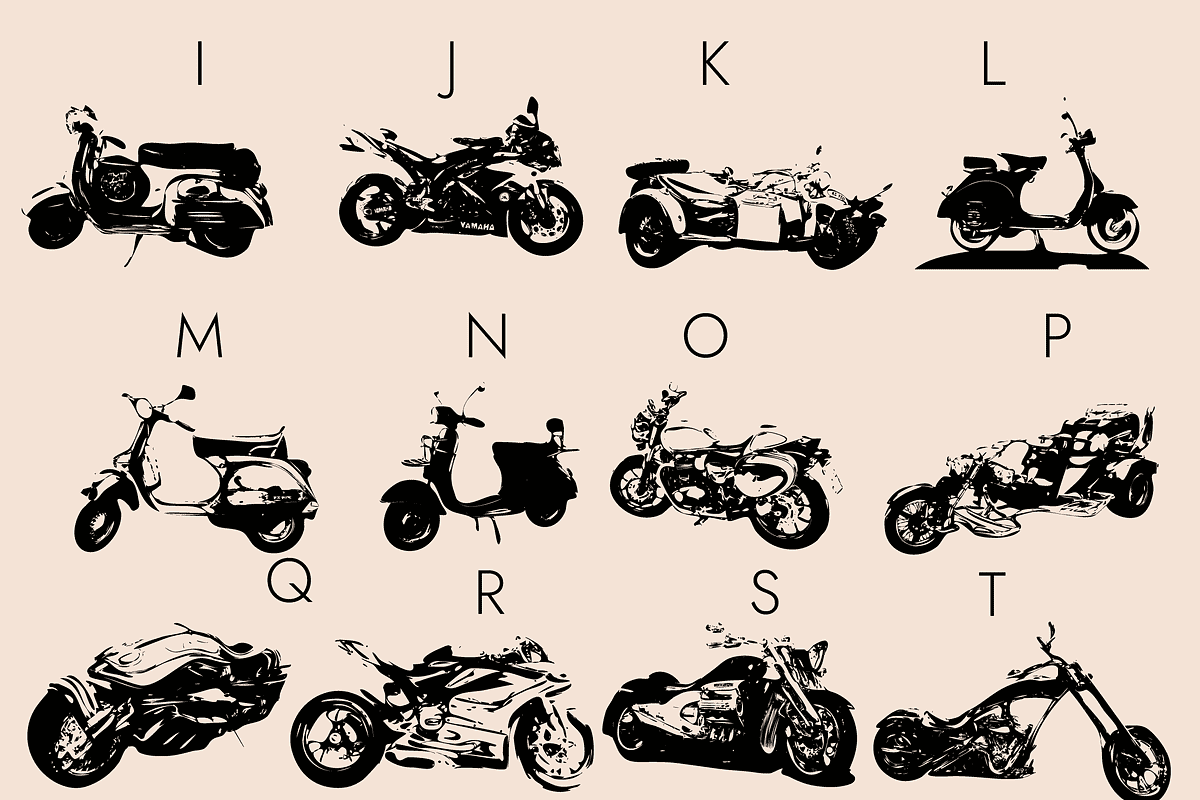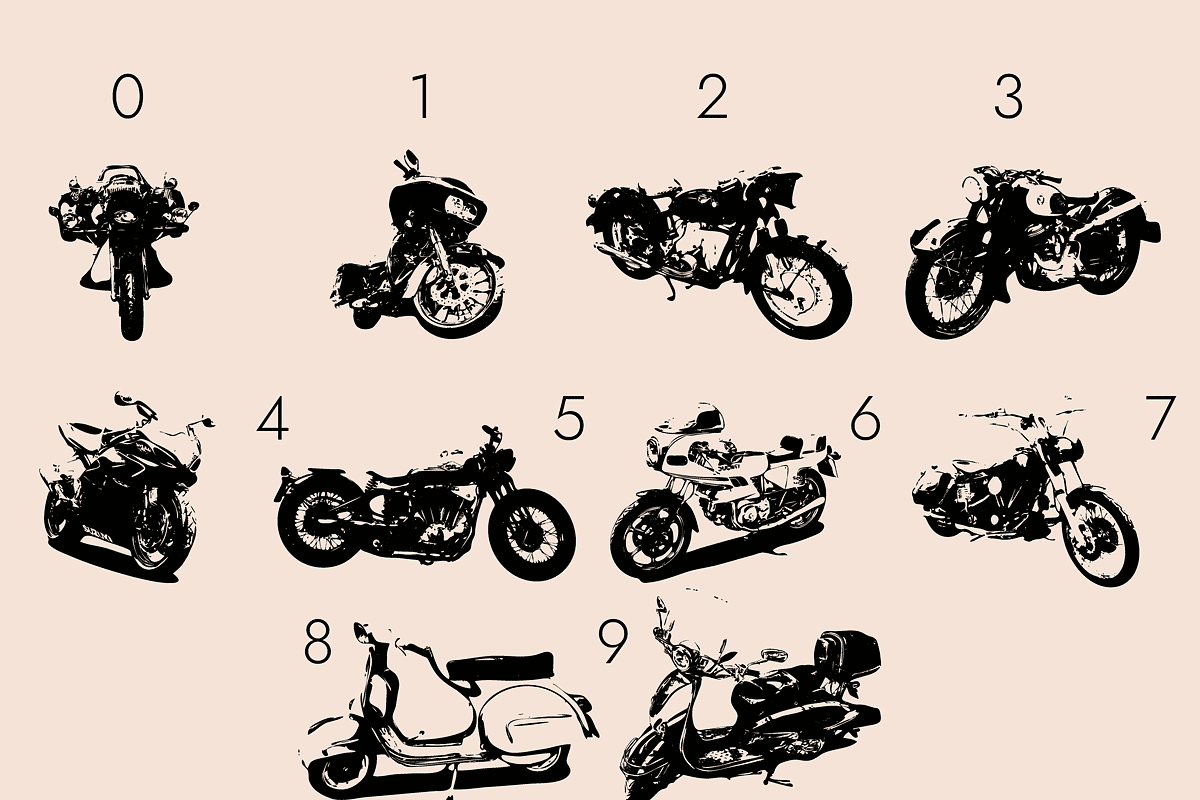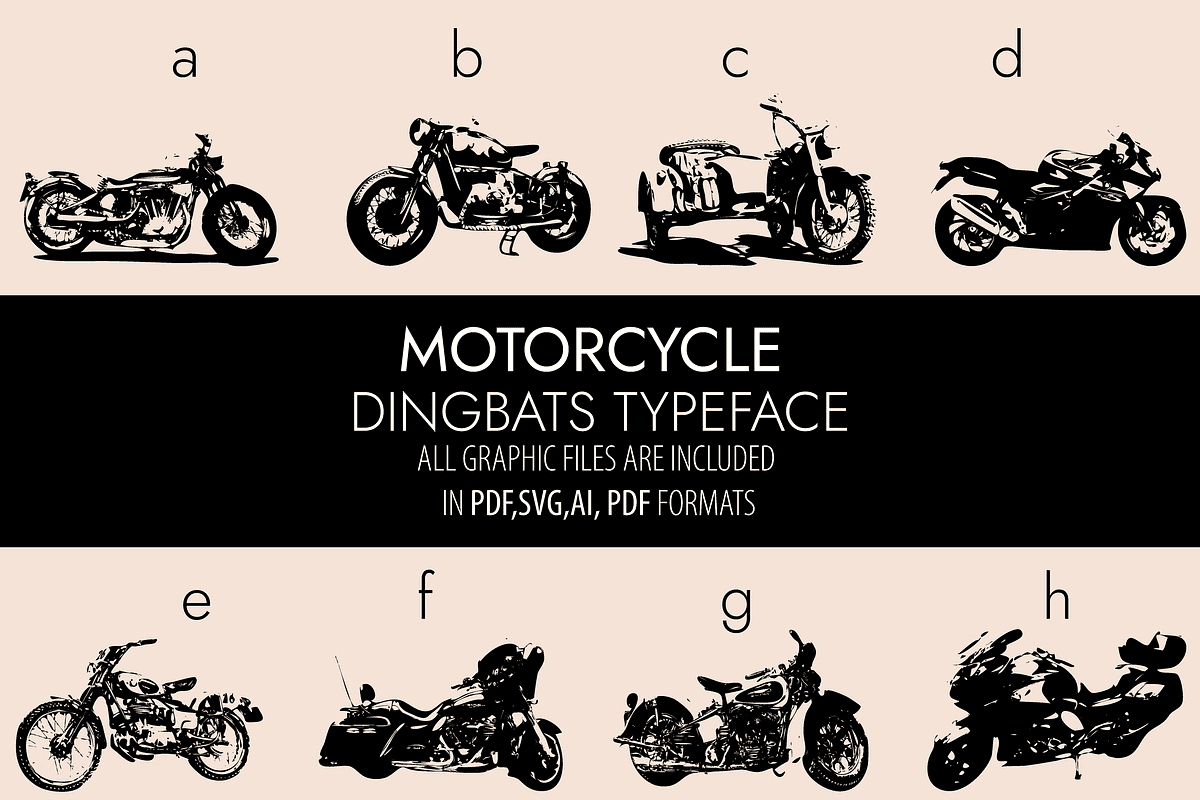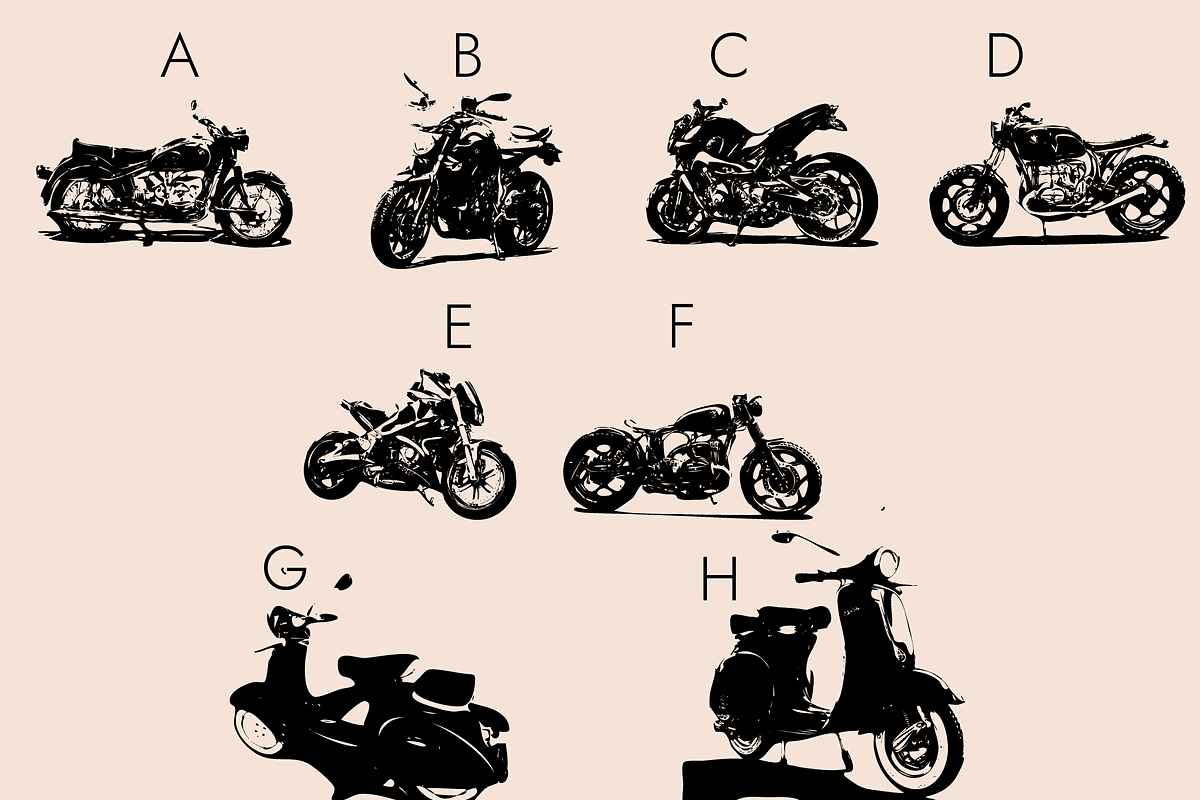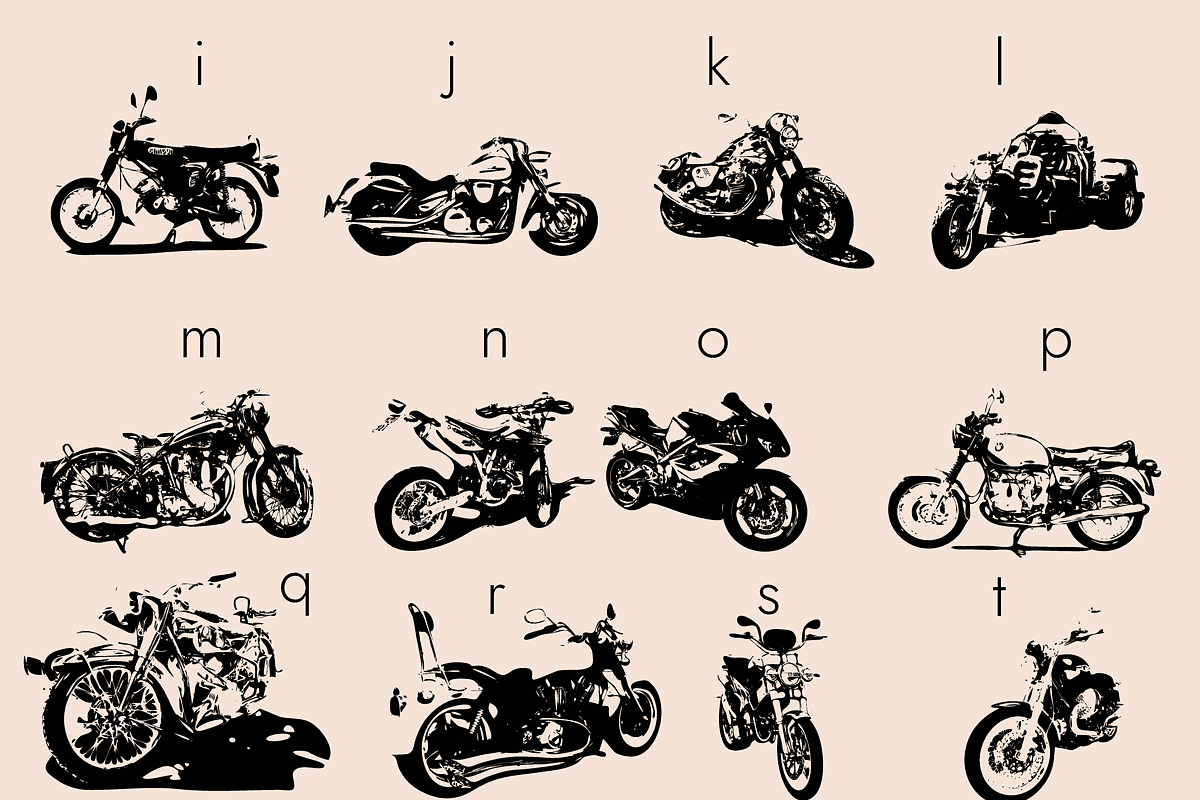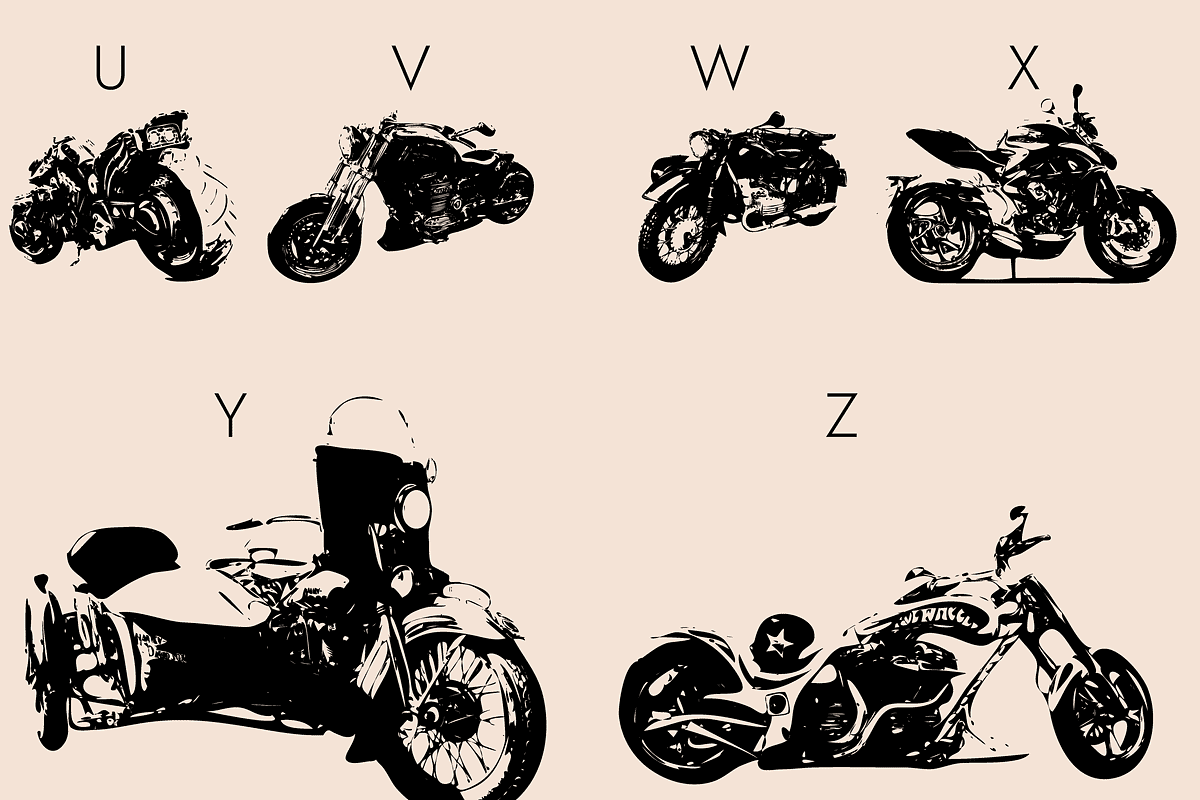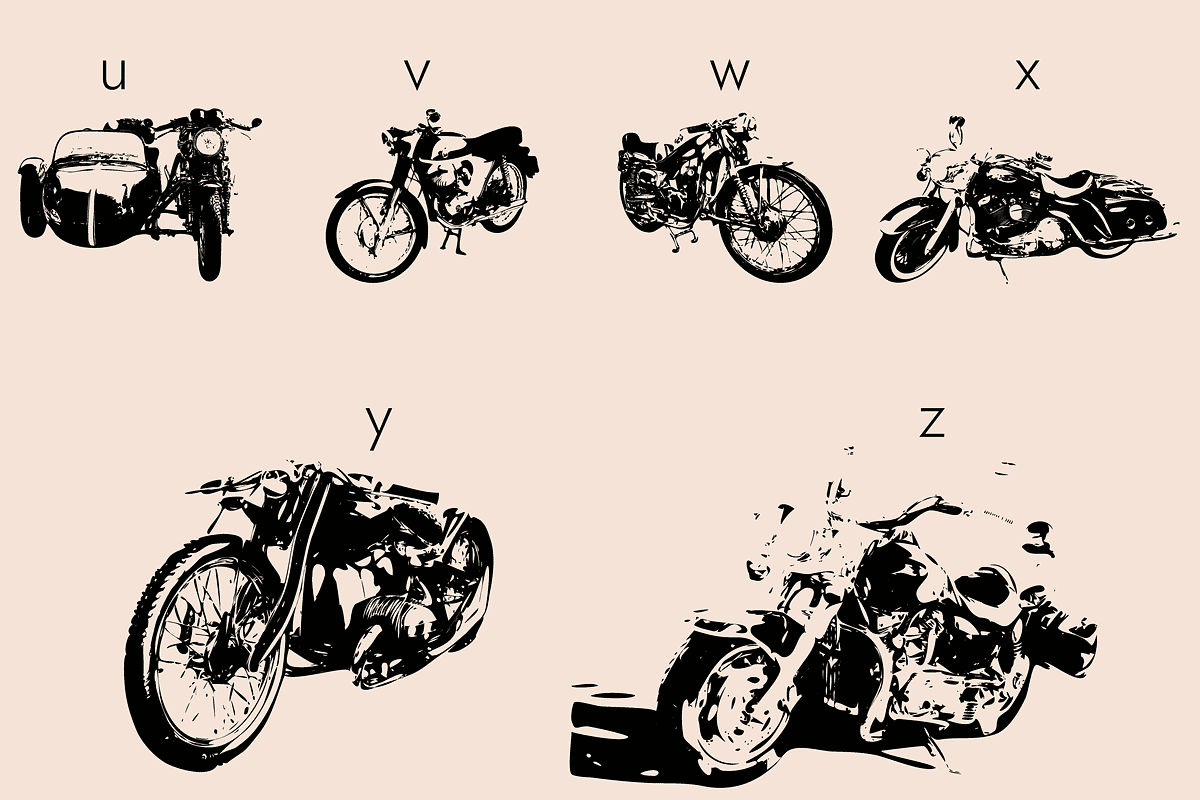
Motorcycle Dingbats Font
Motorcycles is a retro and interesting dingbats font. Whatever the topic, this font will be a wonderful asset to your font library, as it has the potential to enhance any creation.